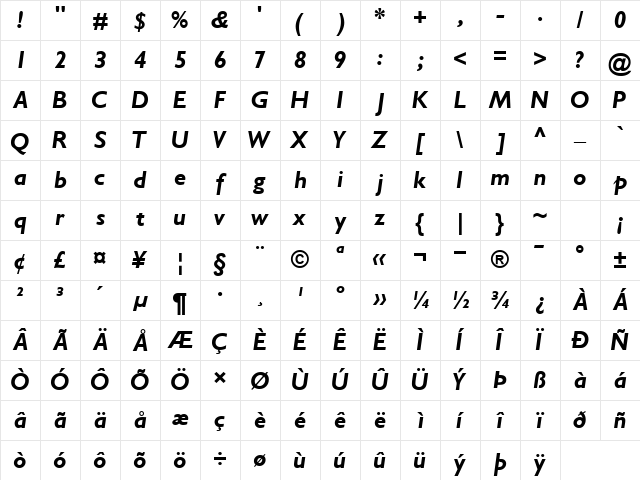
GimletSSK BoldItalic
GimletSSK Family
Design Context for GimletSSK
GimletSSK is a composed and adaptable typeface that performs quietly and consistently across a wide range of design contexts. The slanted form adds forward momentum and visual energy. Its bold stroke weight gives it real presence on the page.
Pro Tip: Use GimletSSK for emphasis, pull quotes, and subheadings where its slanted energy can add rhythm to the layout.